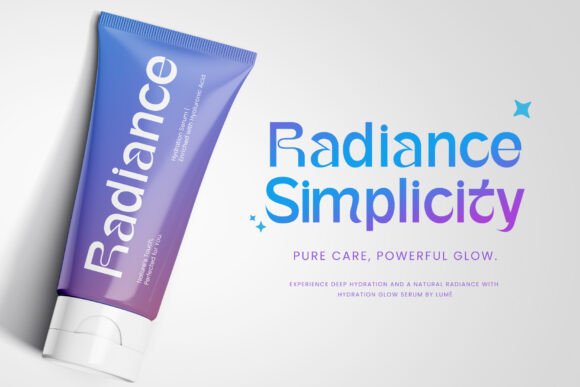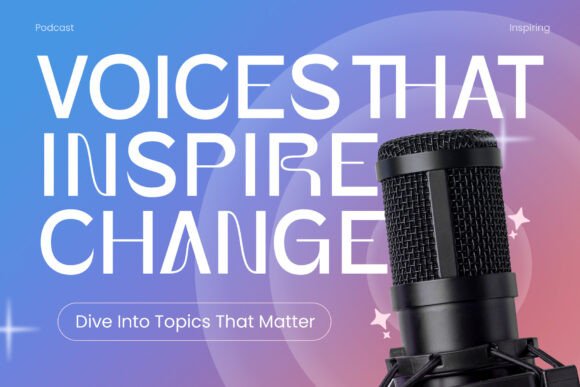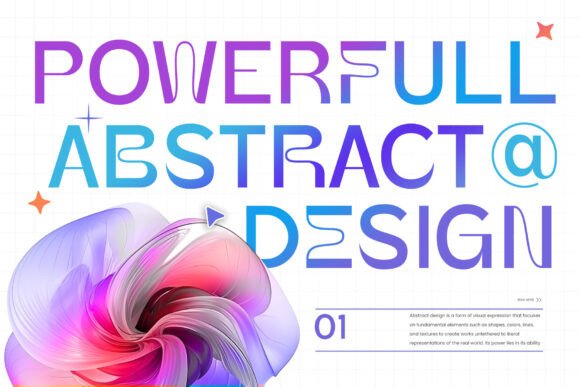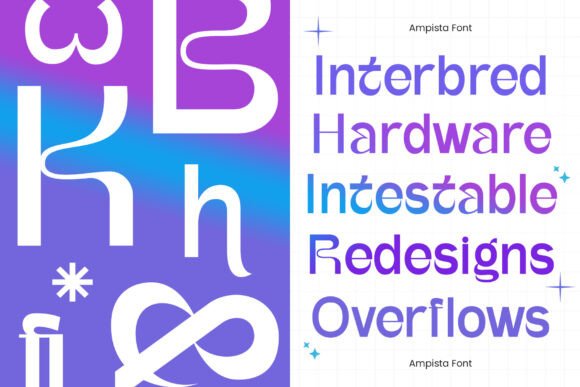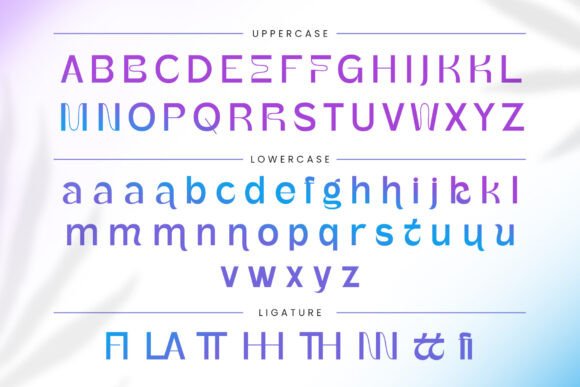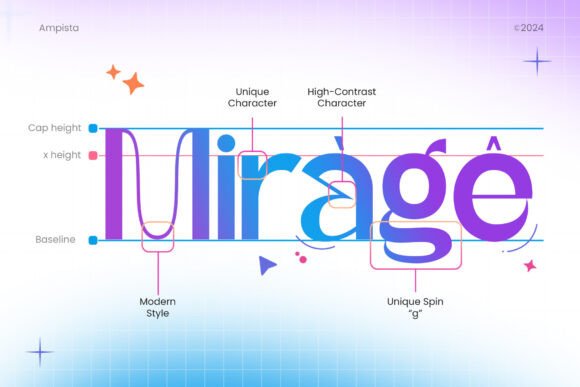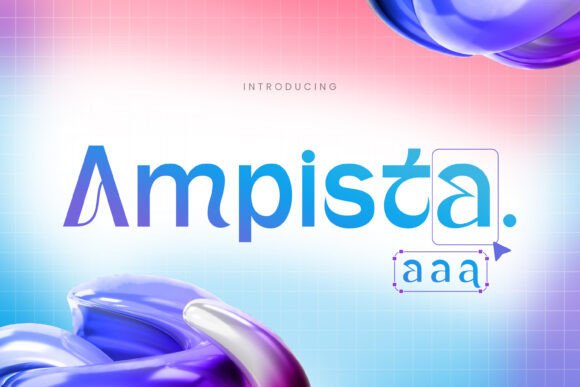
Ampista Font: Elevate Your Brand with Modern Elegance
In the world of typography, a font can make or break a brand’s identity. For designers and crafters seeking to create a lasting impression, Ampista Font is an exceptional choice. This modern, stylish font is specifically designed for logo branding, offering a perfect blend of sleek design and luxurious alternates. Whether you’re working with premium brands in fashion, beauty, or lifestyle, Ampista Font is the ideal solution to add an elegant touch to your creations.
The Characteristics of Ampista Font
Ampista Font boasts clean lines and refined curves, making it a versatile typeface for various applications. Its sleek design ensures that your brand stands out in a crowded market, while its luxurious alternates provide the perfect opportunity to add a touch of sophistication. The font’s modern aesthetic is perfect for:
- Logos: Create a lasting impression with a custom logo that exudes elegance and refinement.
- Websites: Enhance your online presence with a font that is both visually appealing and easy to read.
- Promotional Materials: Elevate your brand’s marketing efforts with stylish and sophisticated typography.
Why Choose Ampista Font?
When it comes to selecting a font for your brand, there are several reasons why Ampista Font stands out from the rest:
- Modern Design: Ampista Font features a contemporary design that is sure to capture the attention of your target audience.
- Luxurious Alternates: Add an extra layer of sophistication to your brand with the font’s luxurious alternates.
- Versatility: Ampista Font is suitable for a wide range of applications, from logos and websites to promotional materials.
- Elegance: The font’s sleek design and refined curves make it perfect for premium brands in fashion, beauty, and lifestyle.
Perfect for Premium Brands
Ampista Font is specifically designed for premium brands in:
- Fashion: Elevate your fashion brand with a font that exudes style and sophistication.
- Beauty: Create a lasting impression in the beauty industry with a font that is both elegant and refined.
- Lifestyle: Enhance your lifestyle brand with a font that is both modern and luxurious.
Tips for Using Ampista Font
To get the most out of Ampista Font, consider the following tips:
- Pair with Neutrals: Pair Ampista Font with neutral colors to create a clean and sophisticated look.
- Experiment with Alternates: Take advantage of the font’s luxurious alternates to add visual interest to your designs.
- Use for Headings: Use Ampista Font for headings and titles to create a lasting impression.
Ampista Font is a modern, stylish font perfect for logo branding. Its sleek design, luxurious alternates, and versatility make it an ideal choice for premium brands in fashion, beauty, and lifestyle. Whether you’re a designer or crafter, Ampista Font is sure to elevate your brand and add an elegant touch to your creations. With its clean lines and refined curves, Ampista Font is the perfect solution for anyone seeking to create a lasting impression.